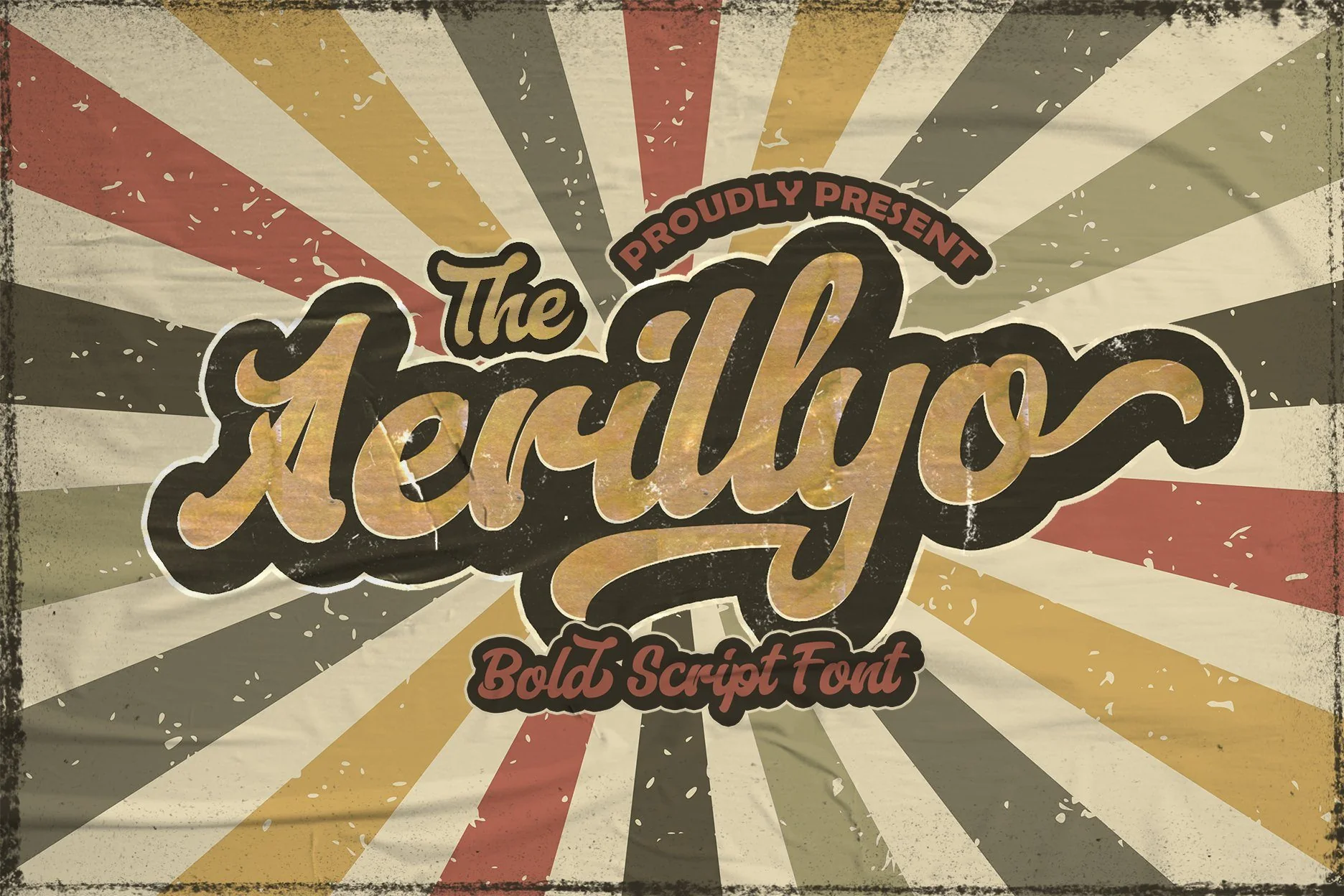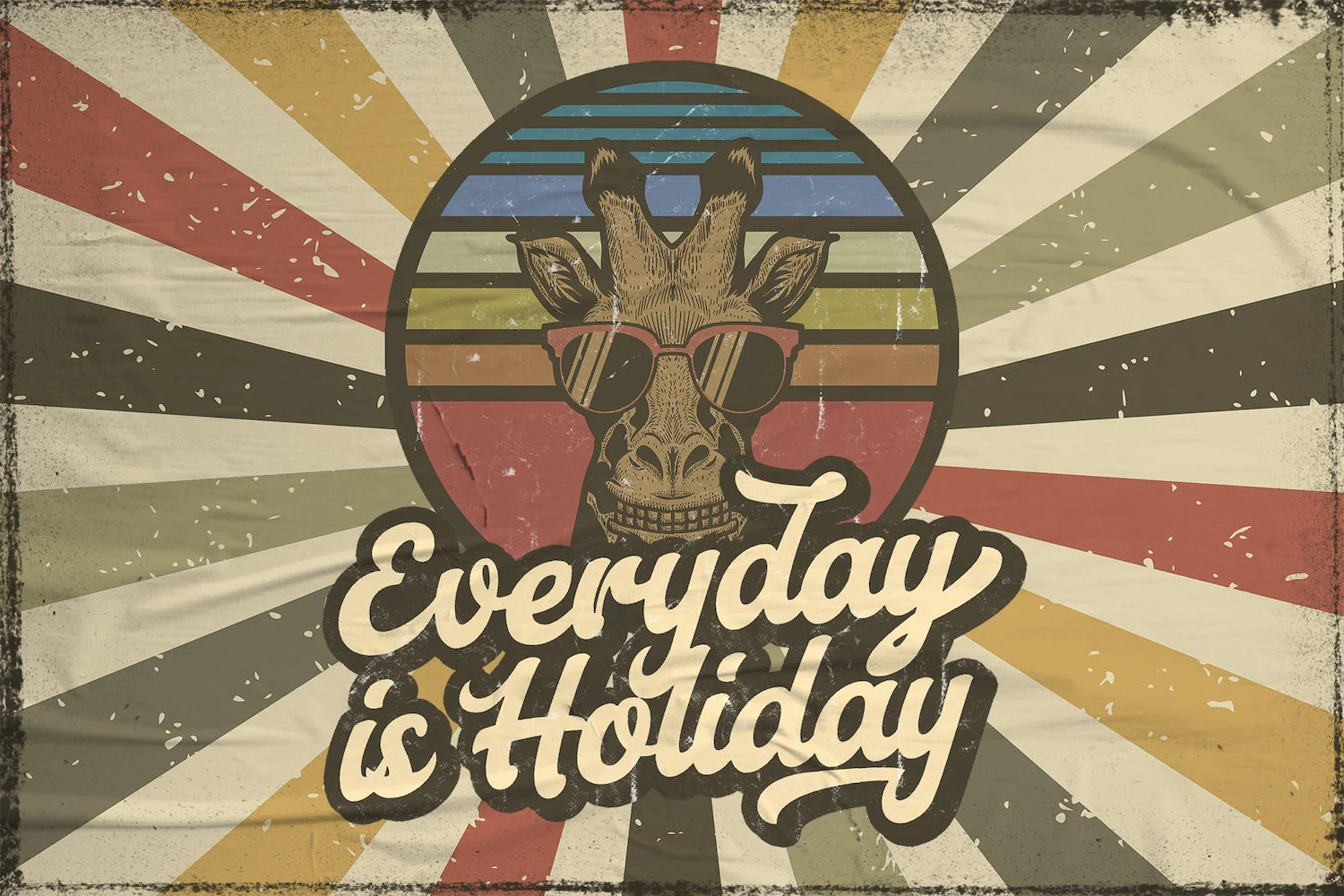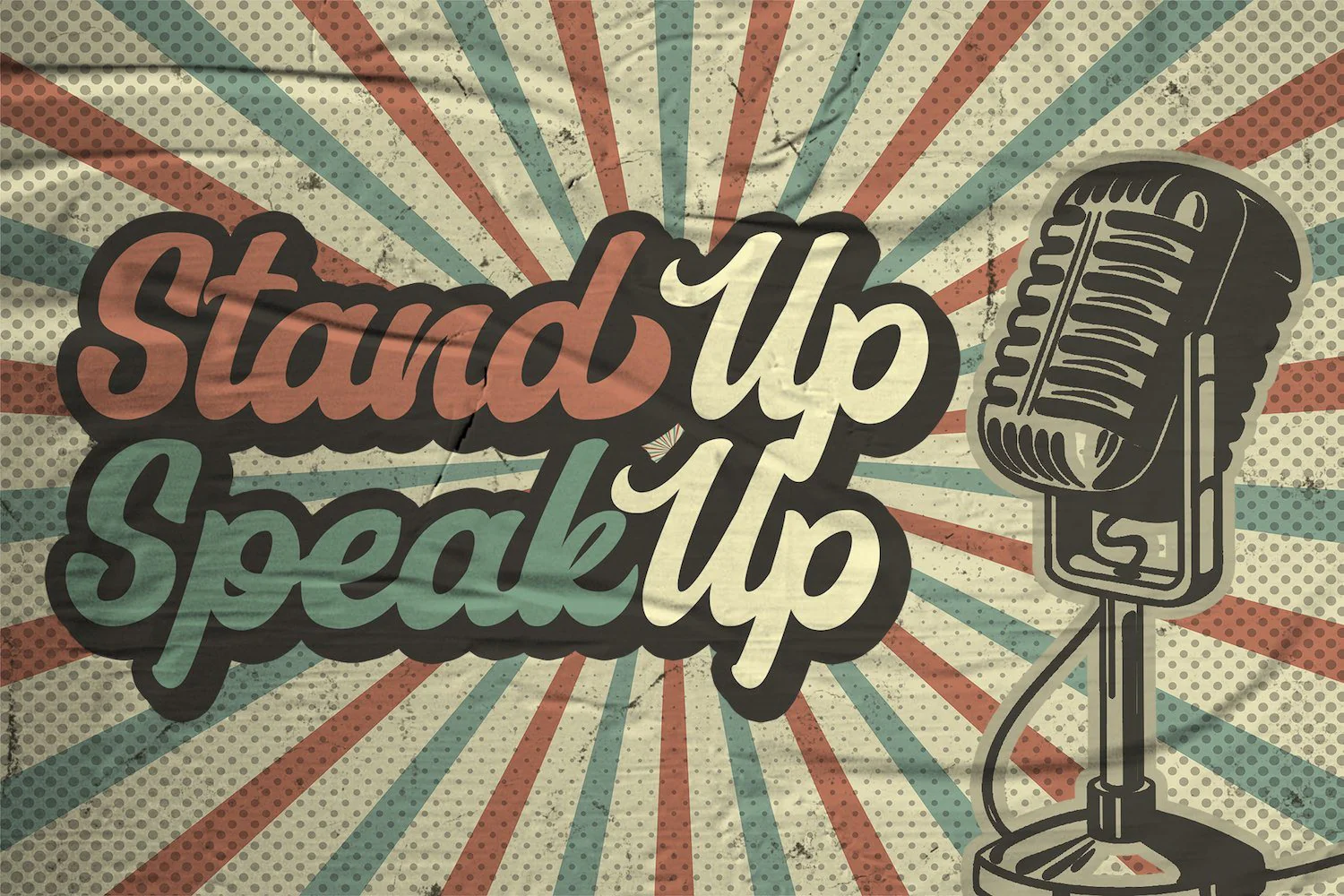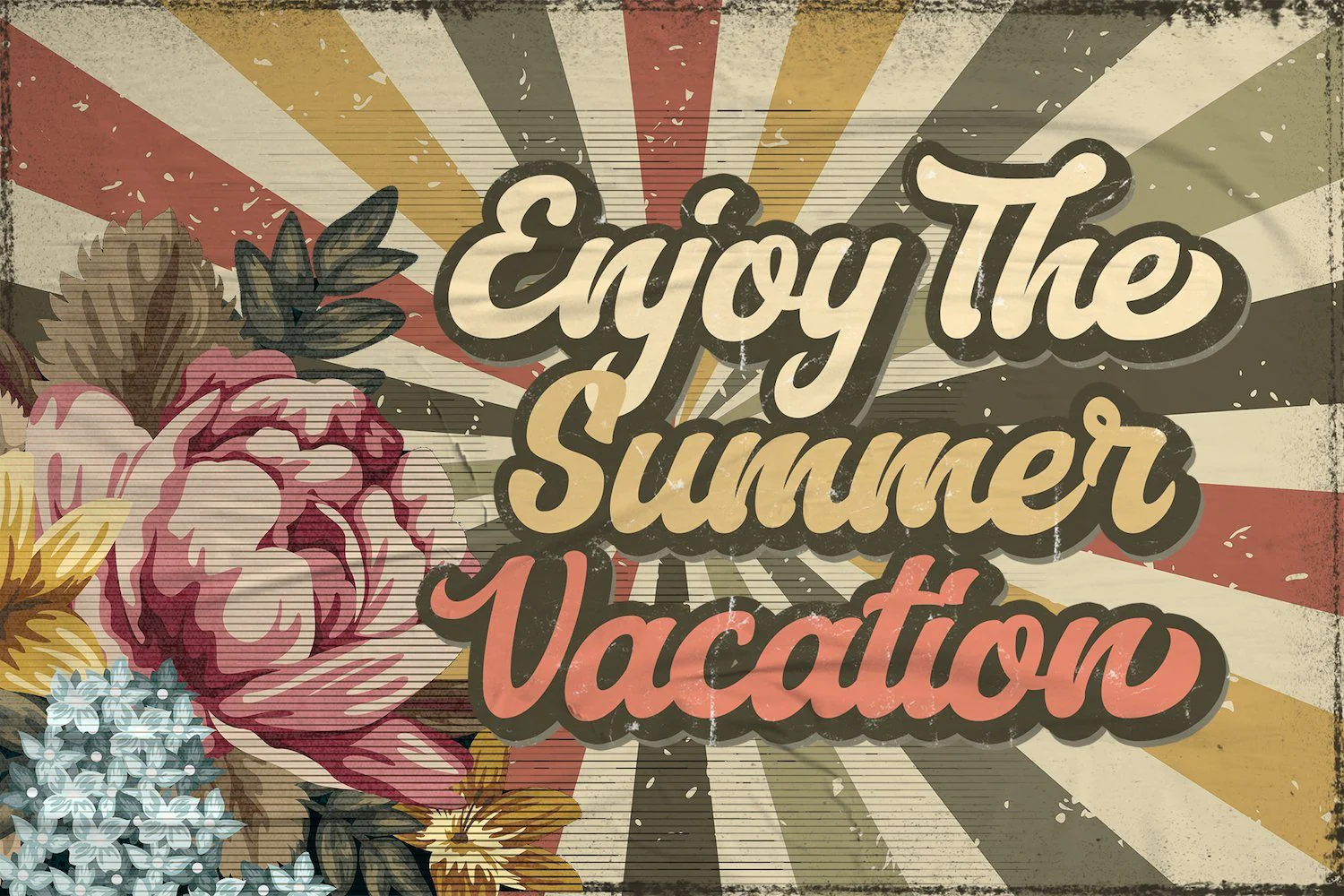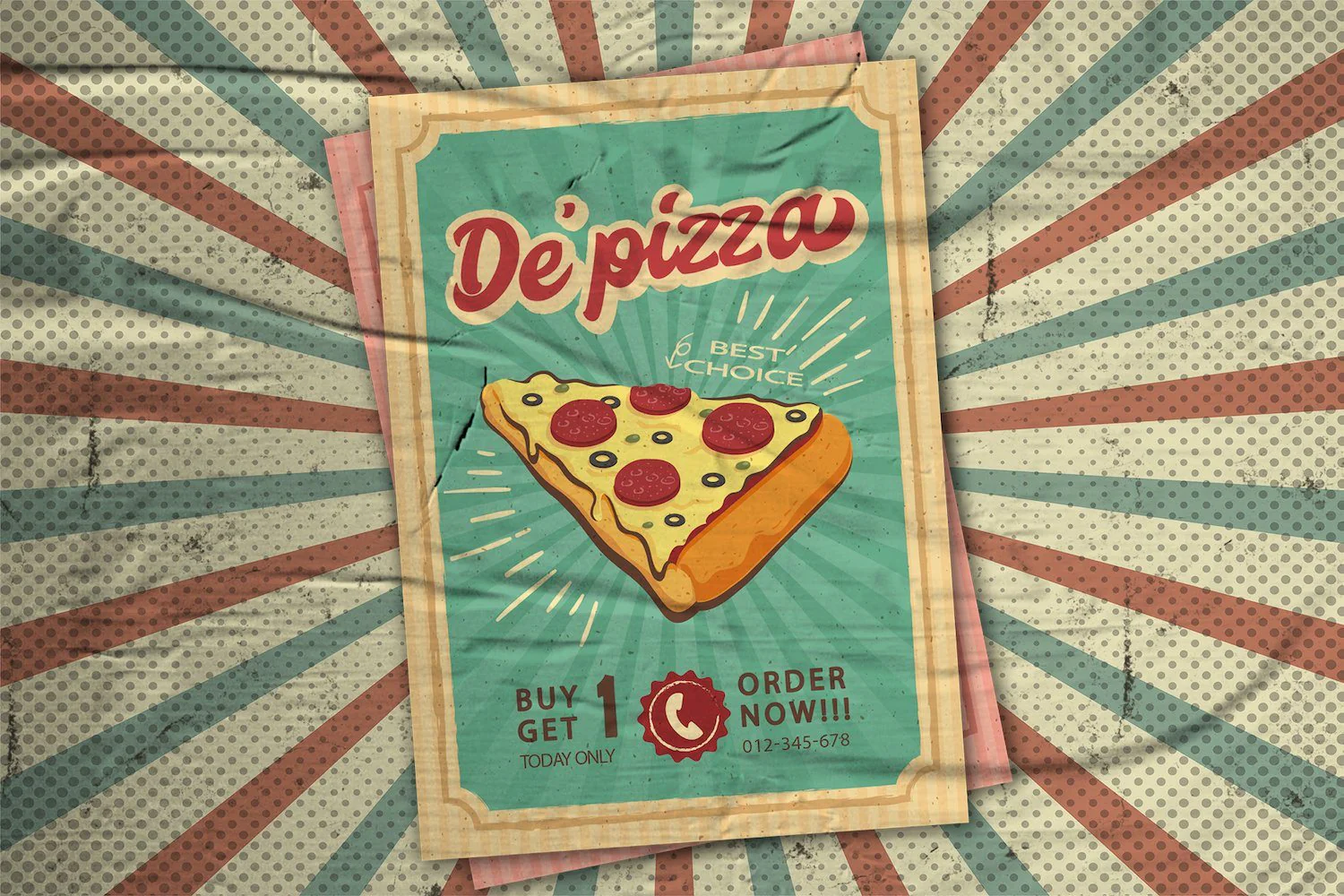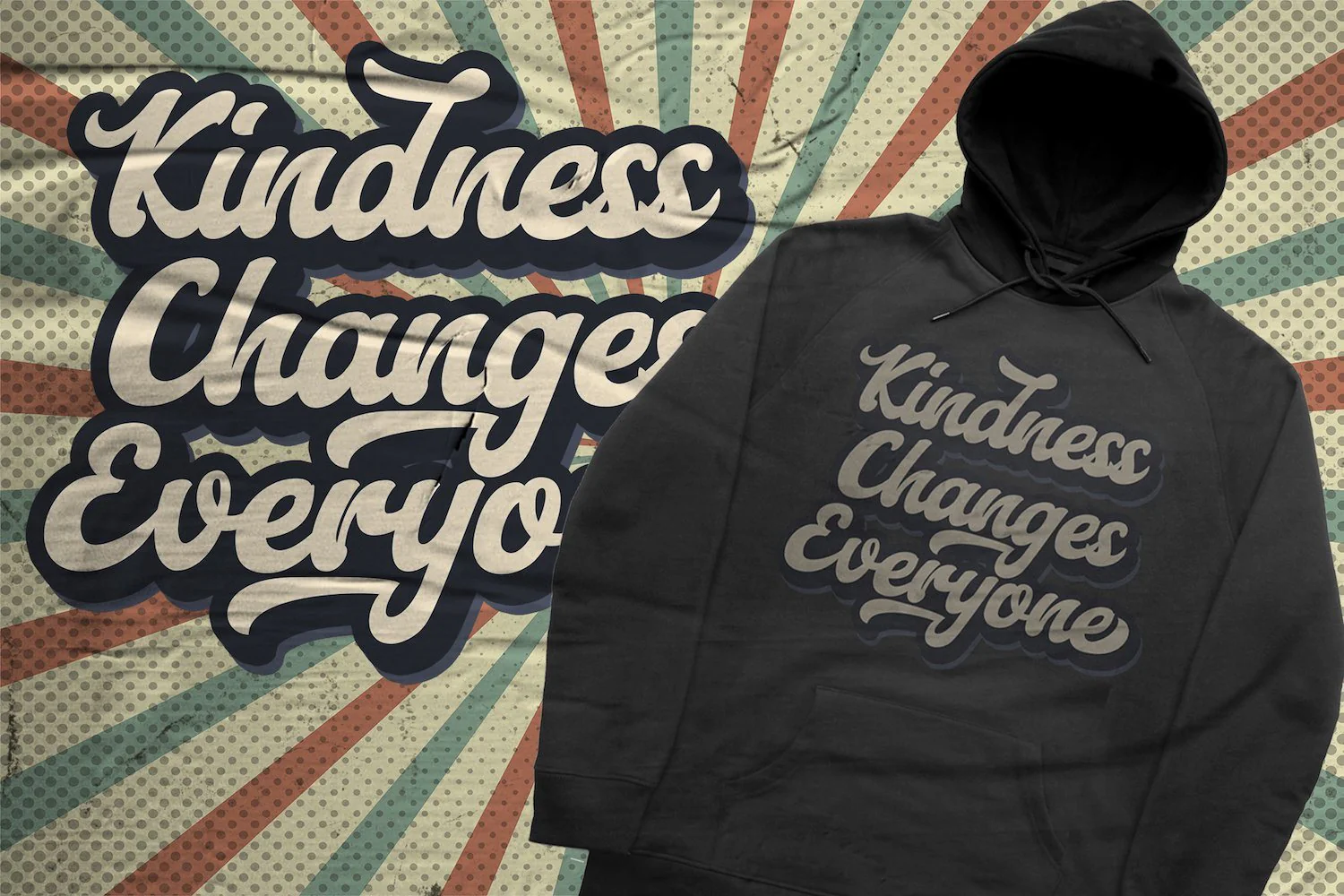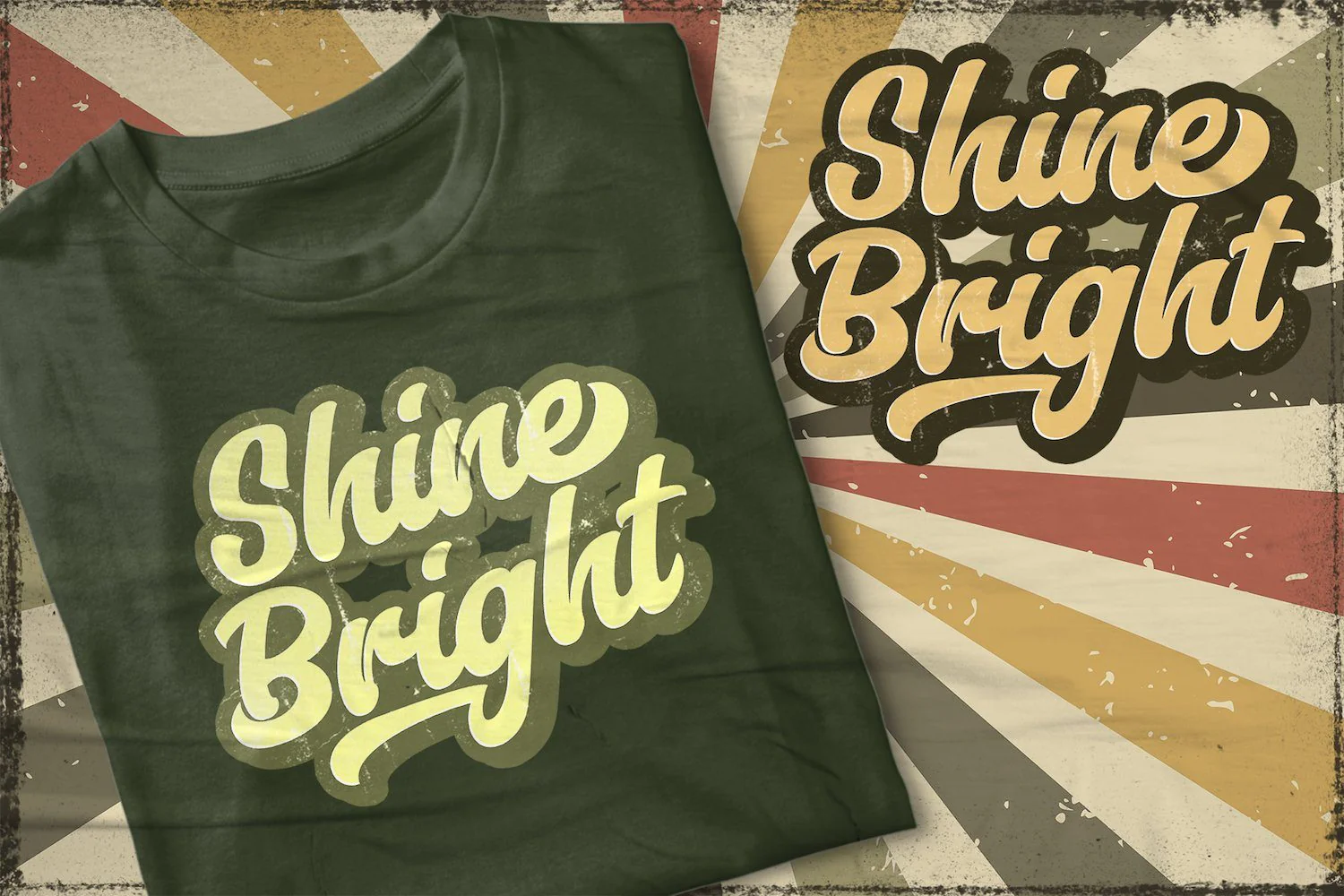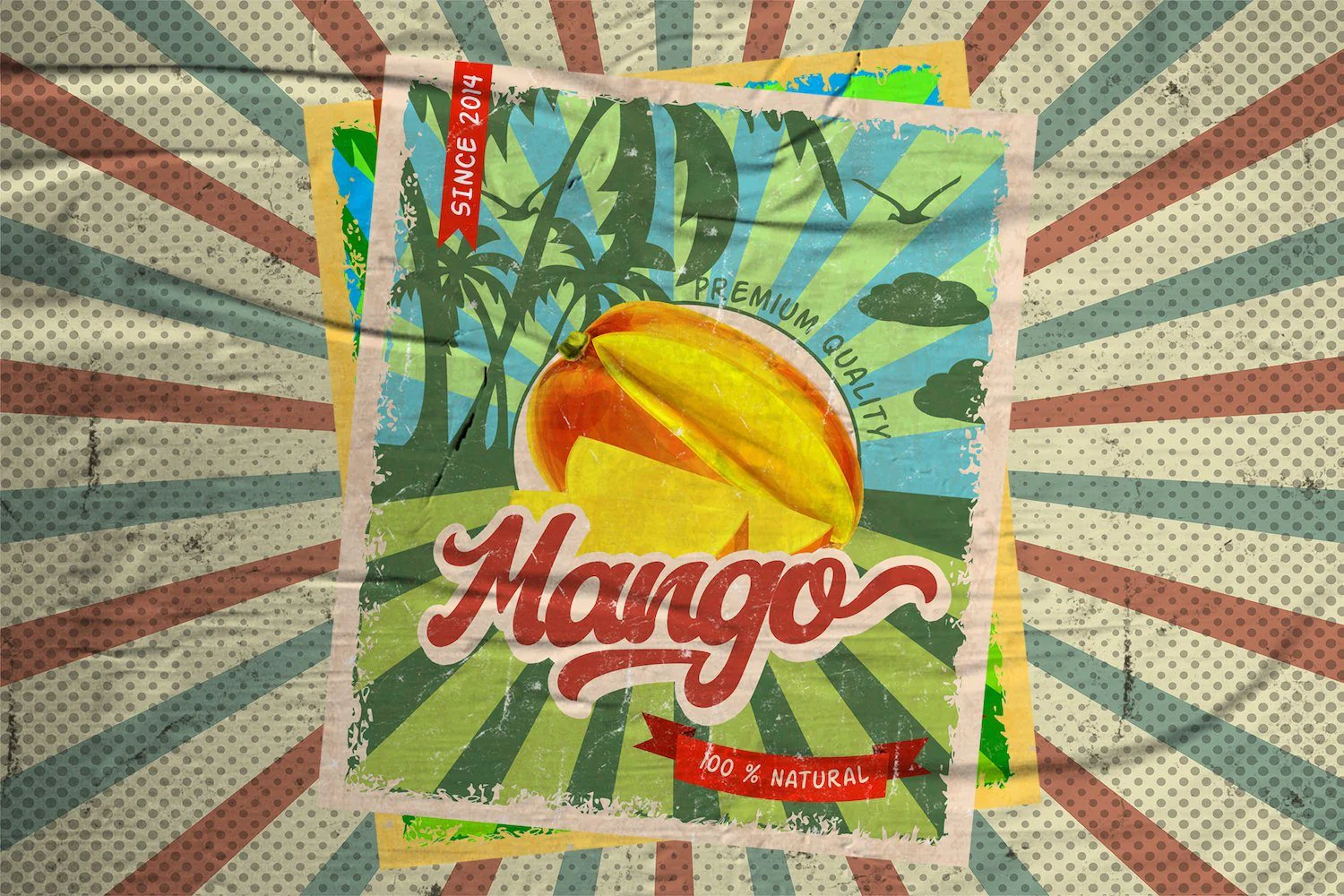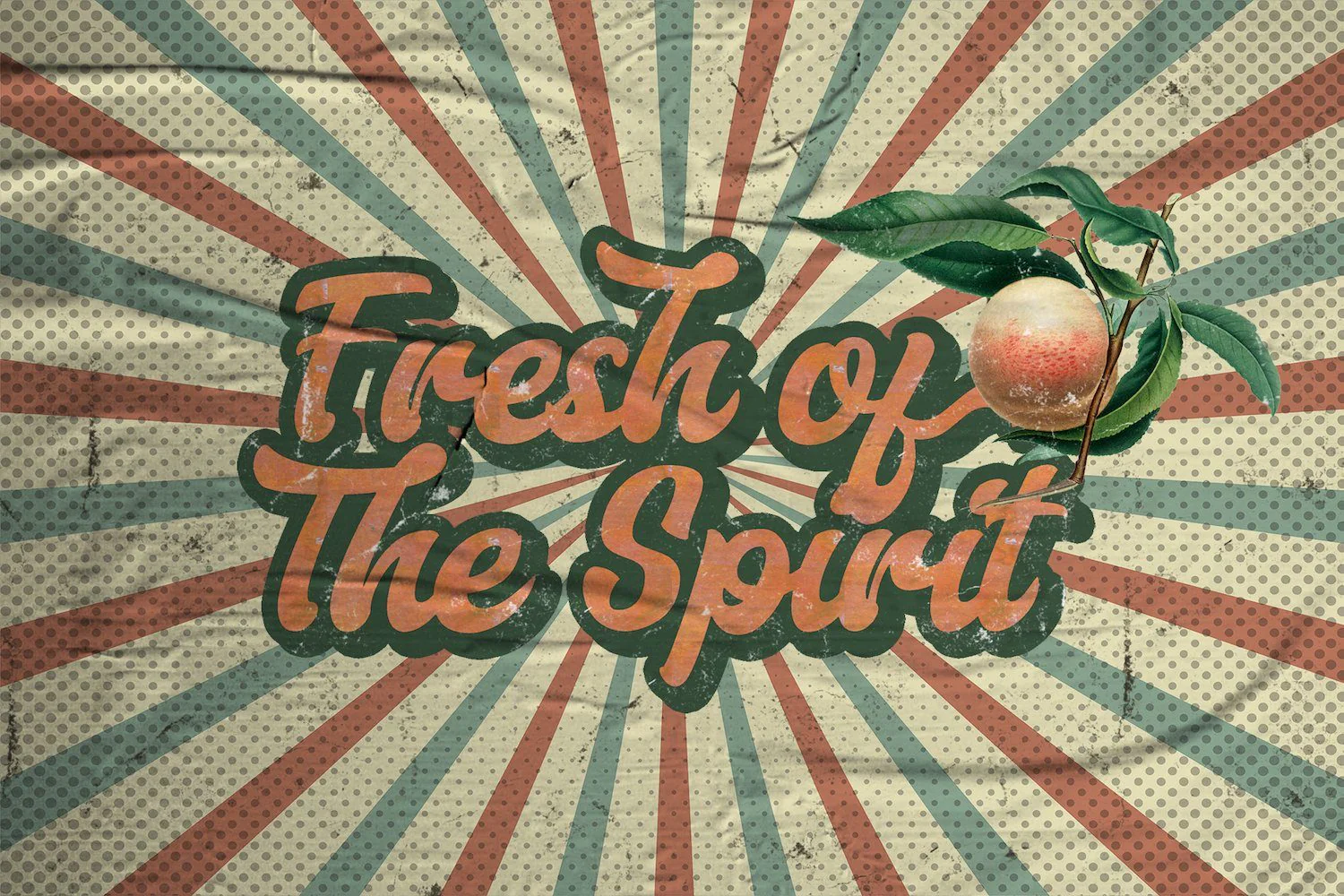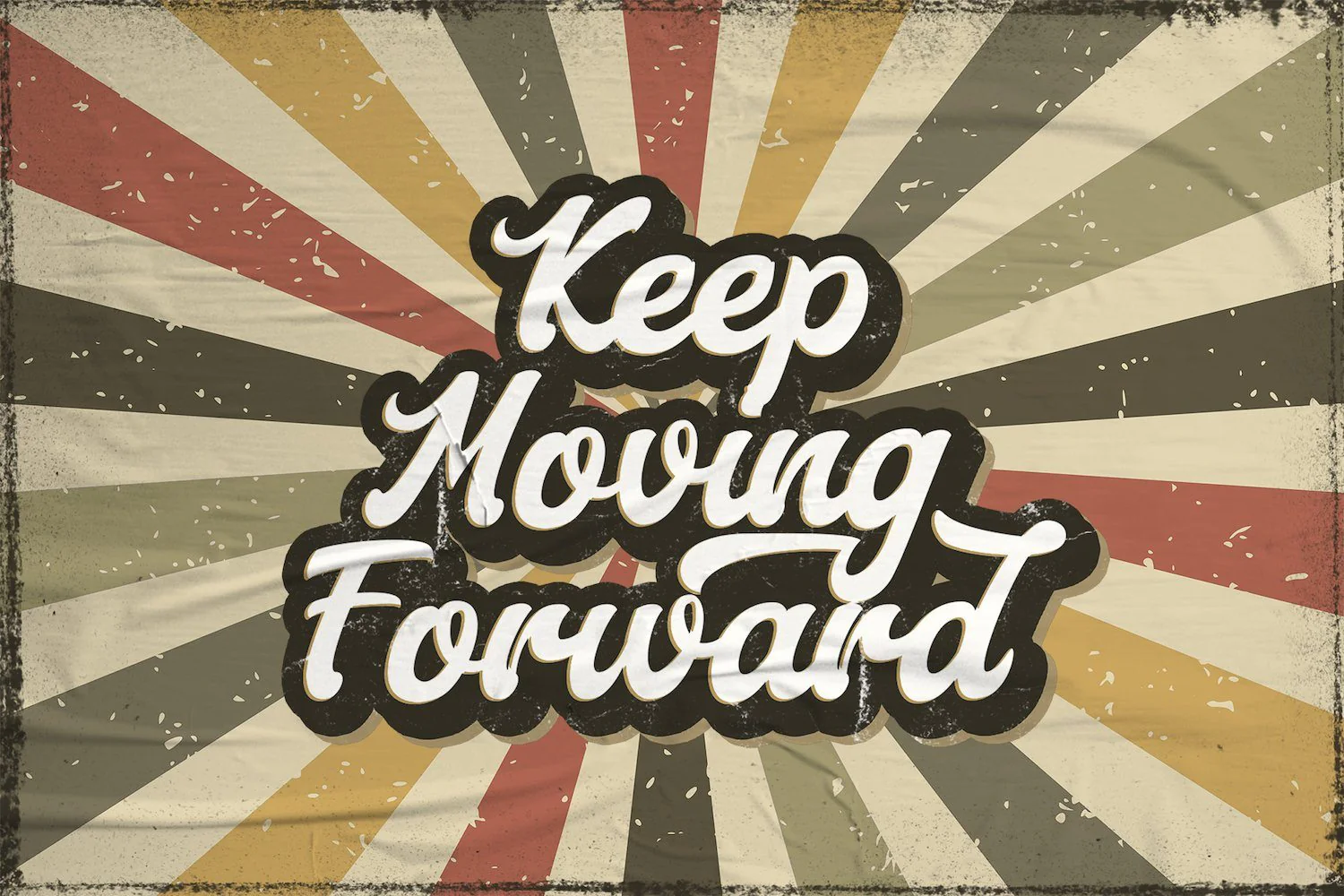
Aerillyo - Retro Bold Script Font
Introducing Aerillyo - Retro Bold Script Font
The Aerillyo is a strong and bold script font. Itās curved and rounded in every single touch, and has an unique vintage and retro styles thatās perfect for branding. The Aerillyo font is suitable for all your retro, vintage, and 80s style projects.
Introducing Aerillyo - Retro Bold Script Font
The Aerillyo is a strong and bold script font. Itās curved and rounded in every single touch, and has an unique vintage and retro styles thatās perfect for branding. The Aerillyo font is suitable for all your retro, vintage, and 80s style projects.